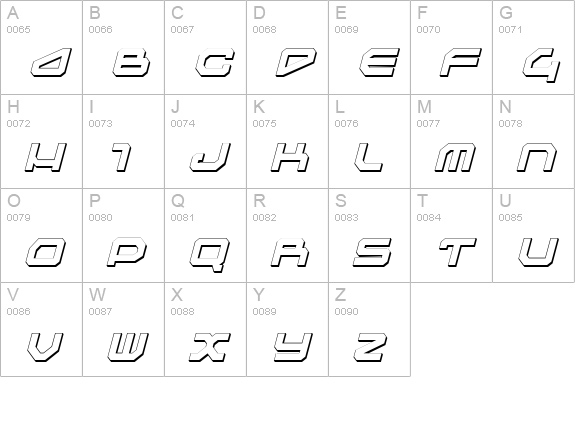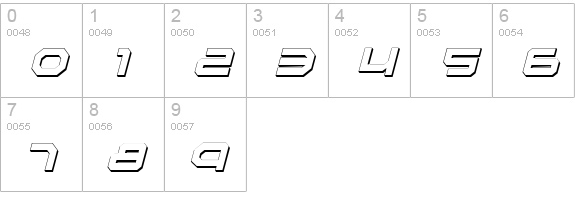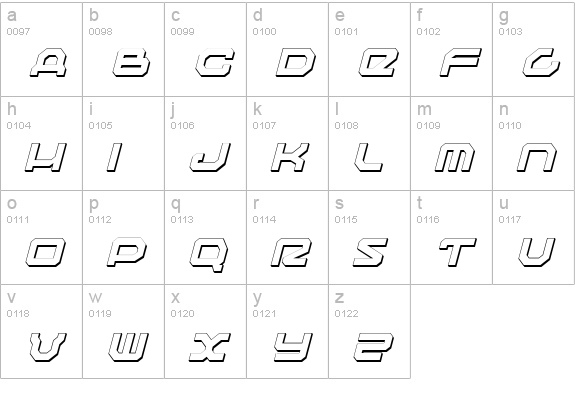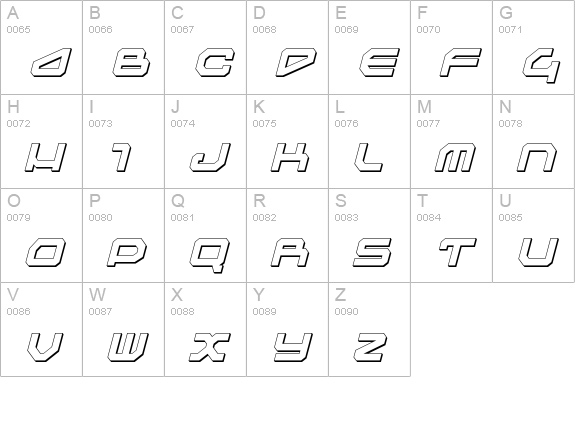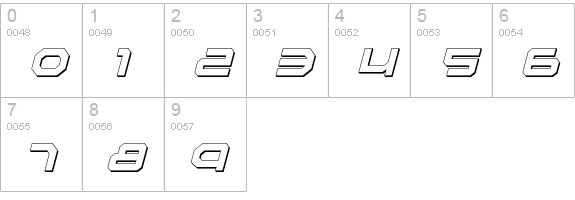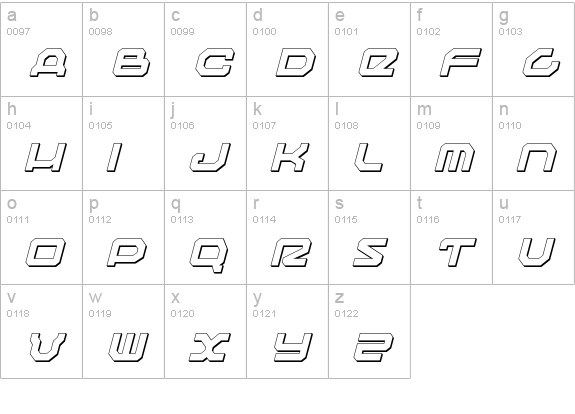
Traveler Shadow Italic is a distinctive, italic variant in the Traveler typeface family \xE2\x80\x94 well suited to design and typography projects.
Traveler Shadow Italic is a stylish and elegant font that exudes a sense of adventure and mystery. The slanted italic design adds a dynamic touch to the classic shadow effect, creating a unique and eye-catching look. Perfect for adding a touch of sophistication to your designs, this font is versatile and can be used for a variety of projects. Best of all, Traveler Shadow Italic is available for free download at FontsMarket.com. Whether you're working on a branding project, creating invitations, or designing a website, this font is sure to make a statement. So go ahead and add a touch of flair to your designs with Traveler Shadow Italic – the perfect choice for those who dare to be different.